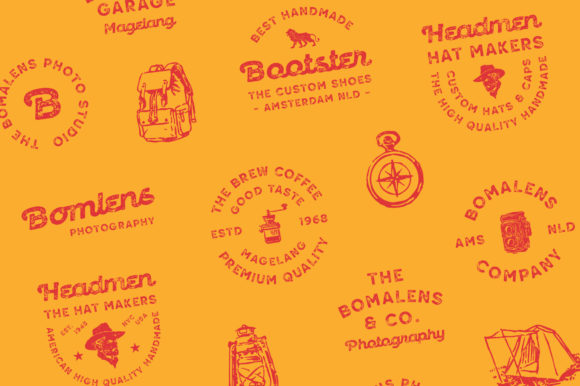
Retrokia Font
Retrokia is a cool and bold duo font (display and script). This font reads as strong, confident, and dynamic and can add tons of nostalgic character to your designs. Retrokia is PUA encoded which means you can access all of the glyphs and swashes with ease!